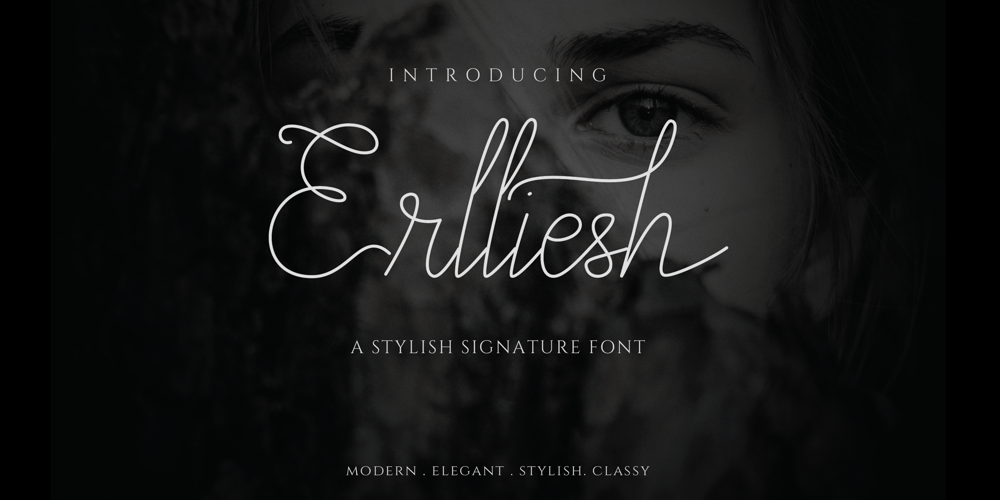
Erlliesh Font Family was designed by Heri Imanudin and published by Krafted. Erlliesh contains 1 styles and family package options. Looking to give a real signature to your product? Good fonts will make it look pretty, but a great font will make it truly memorable.Introducing Erlliesh – A Stylish Signature Font.From posters and merchandise to web pages and social media, Erlliesh will make you stand out every time. Check it out and see the difference a modern and stylish font makes!What you’ll get: Multilingual & Ligature Support Full sets of Punctuation and Numerals Compatible with: Adobe Suite Microsoft Office Keynote Pages Software Requirements: The fonts that you’ll receive in the pack are widely supported by most software. In order to get the full functionality of the selection of standard ligatures (custom-created letters) in the script font, any software that can read OpenType fonts will work. We hope you enjoy this font and that it makes your branding sparkle! Feel free to reach out to us if you’d like more information or if you have any concerns.